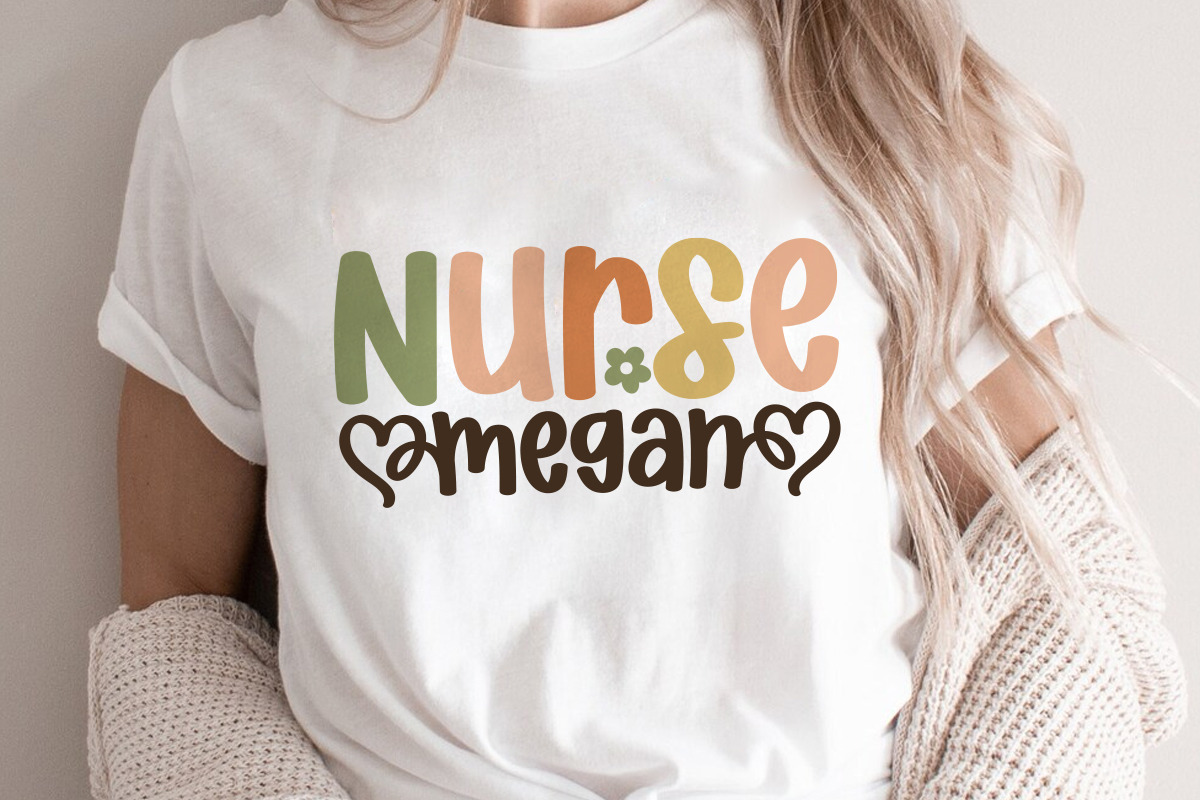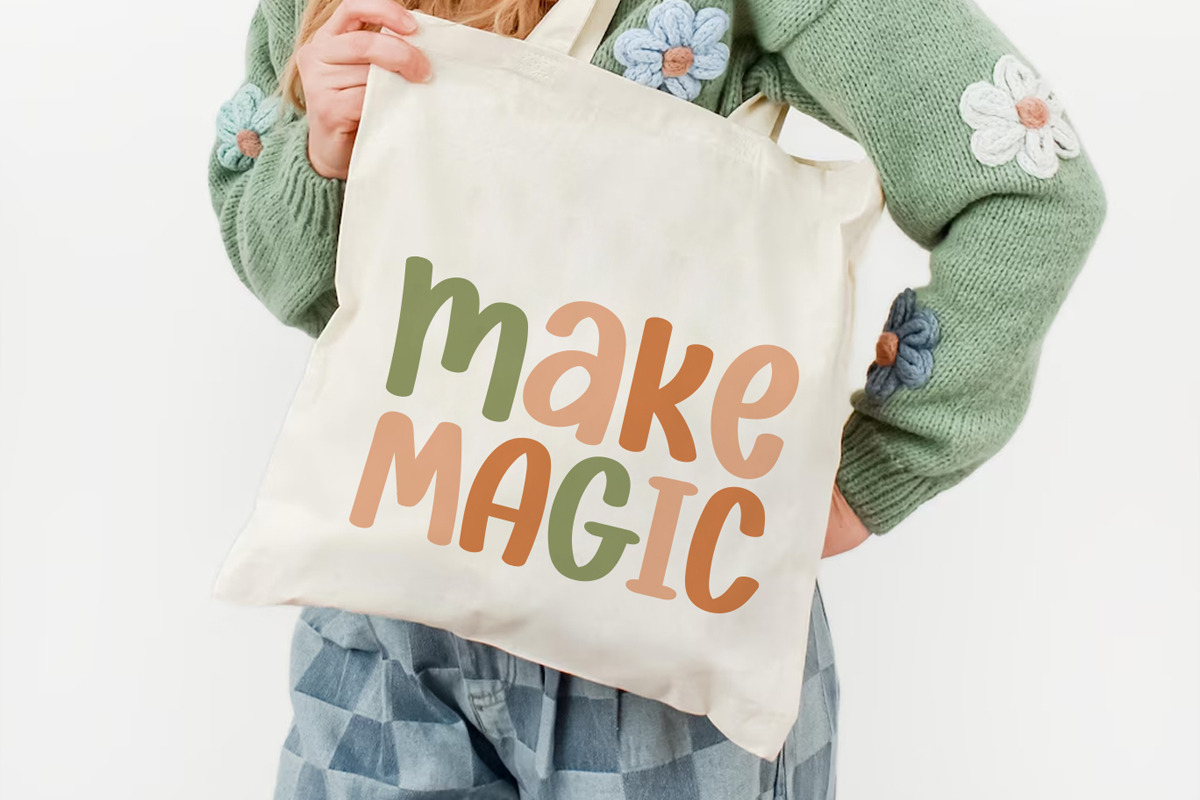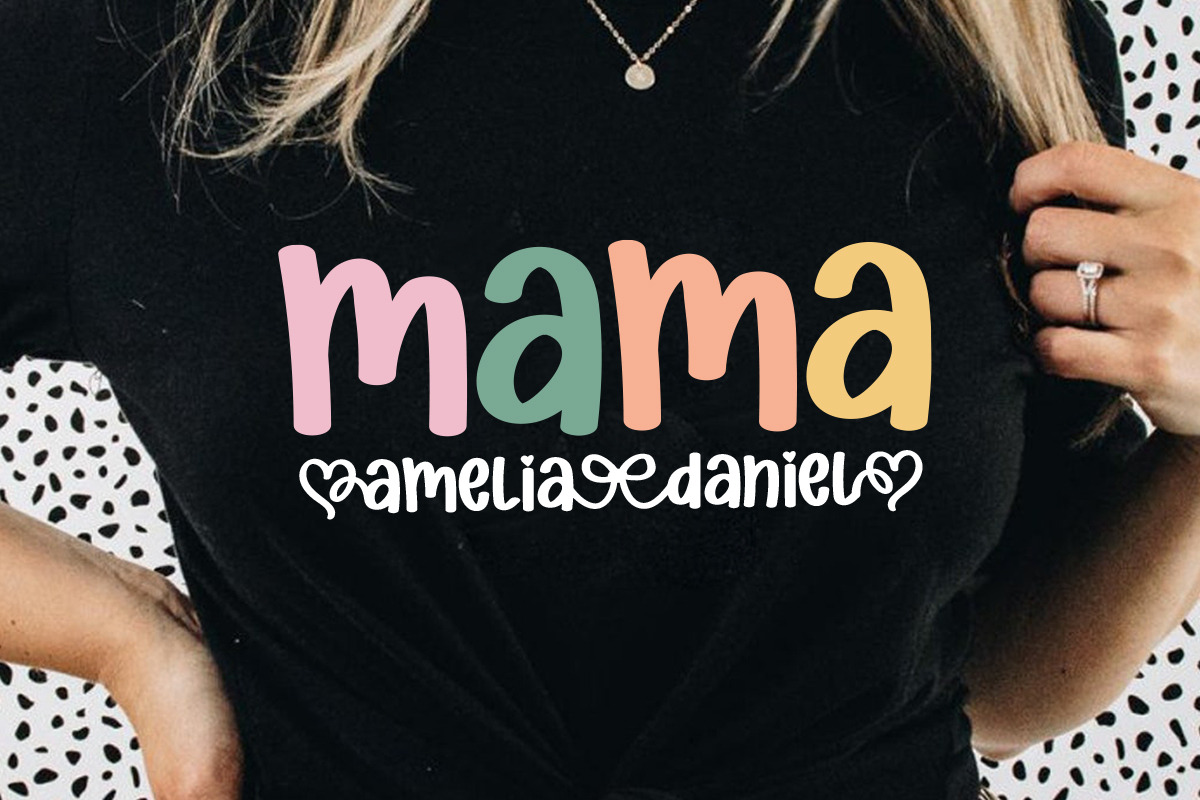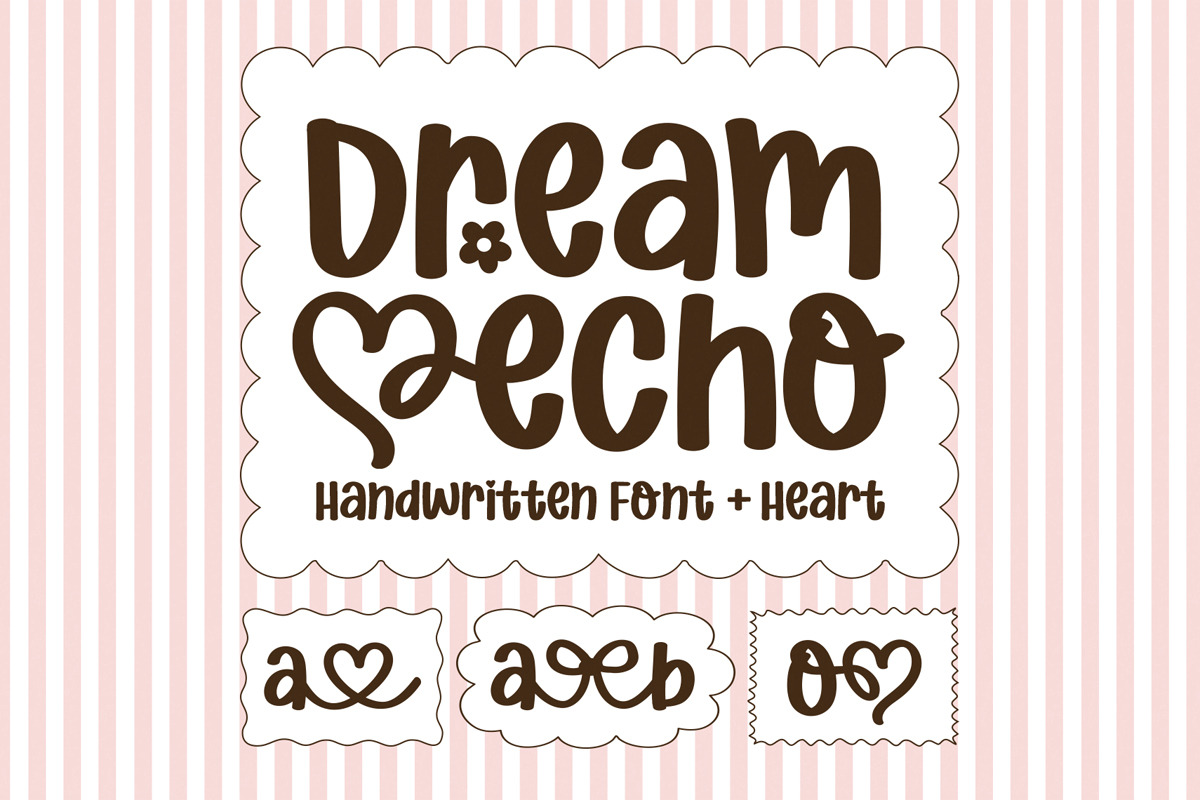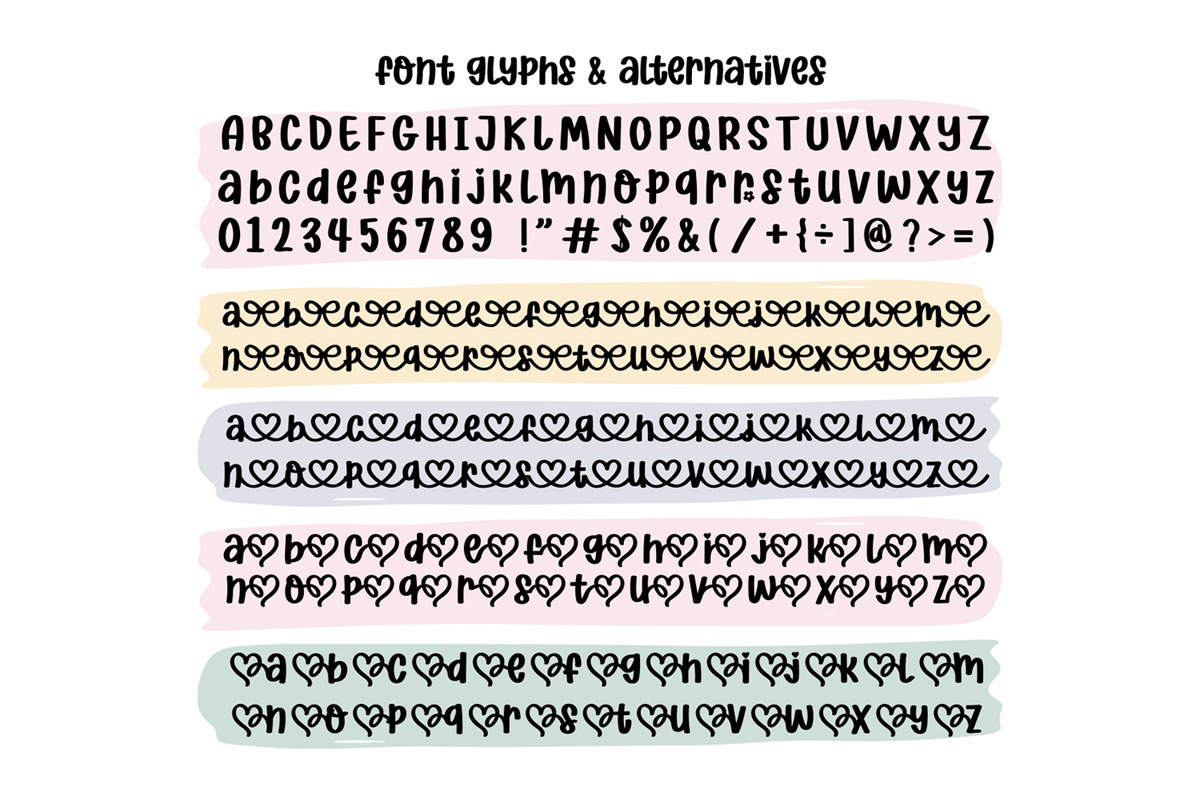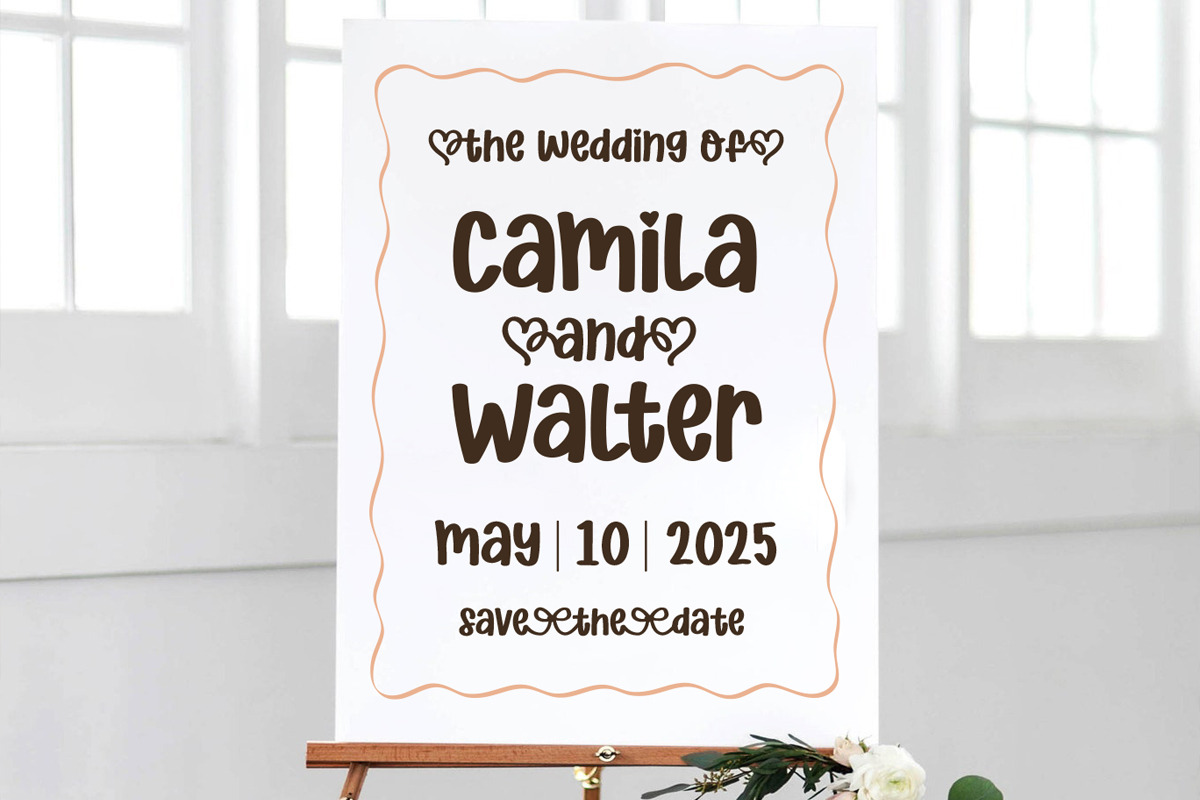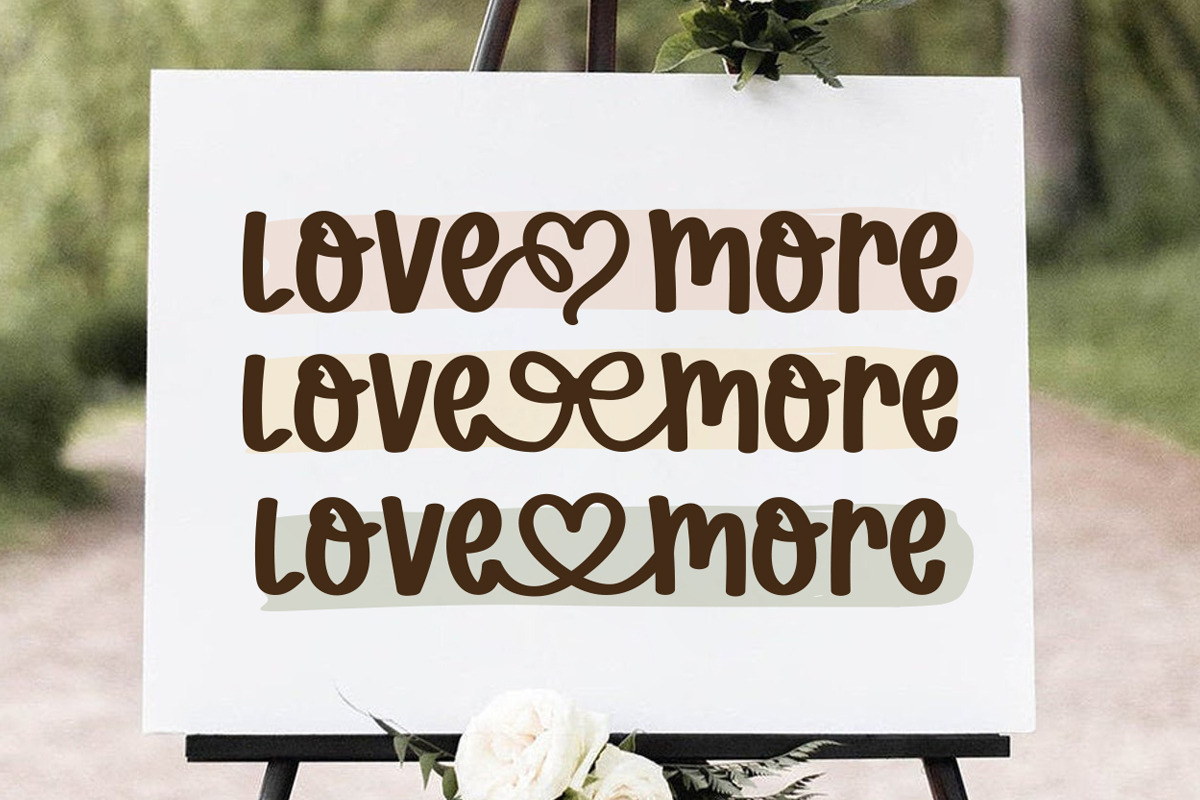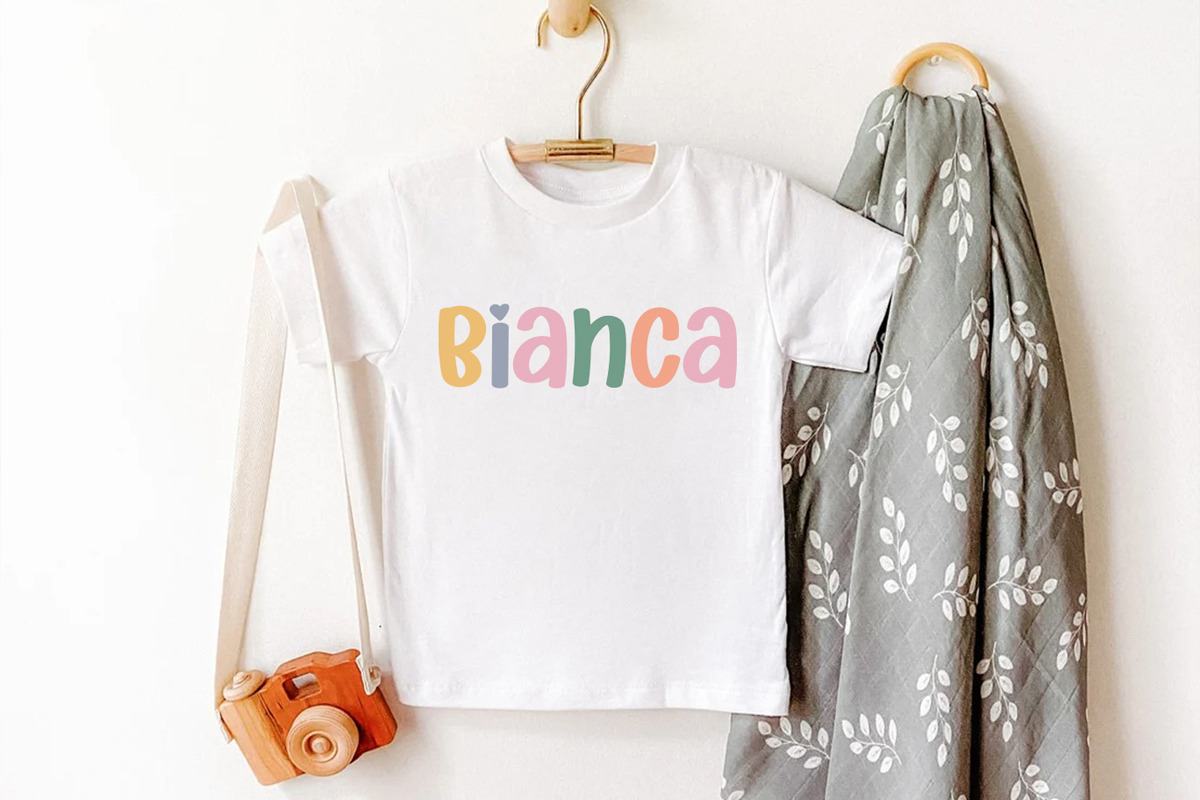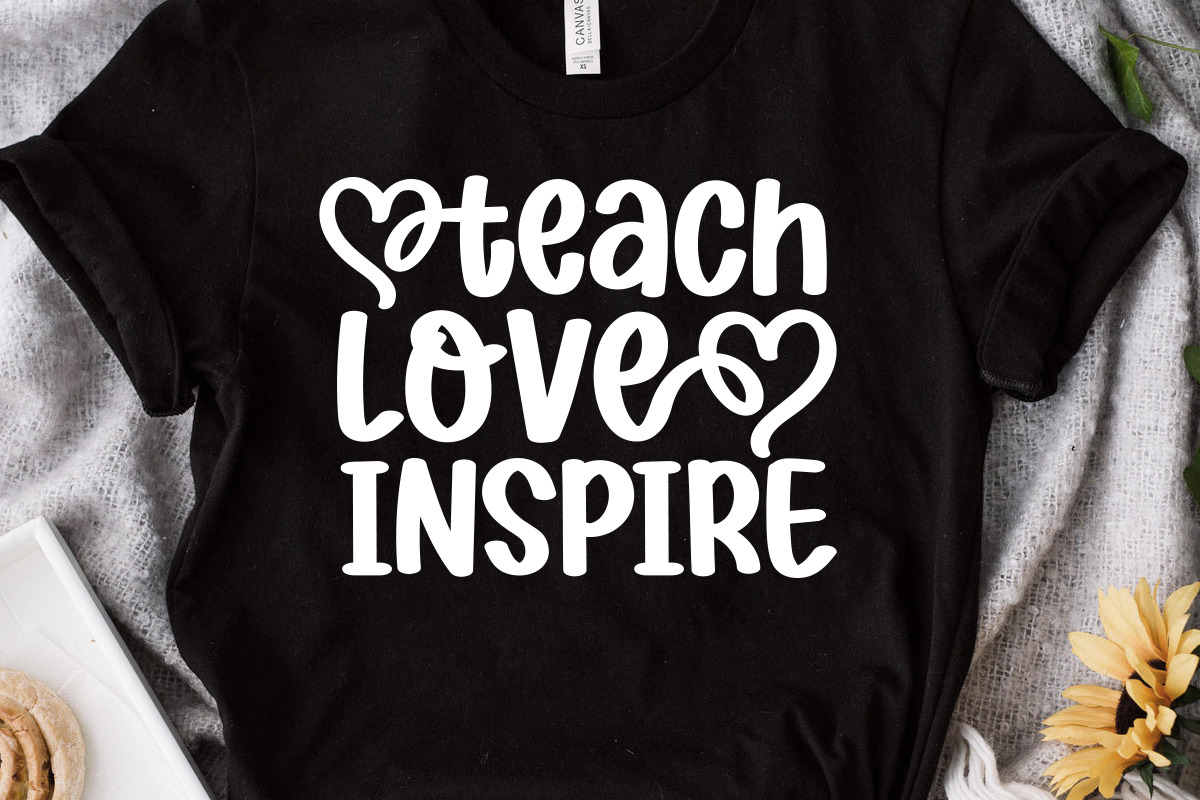
Dream Echo - Handwritten Heart Font
Dream Echo is a modern, stylish, and flowing handwritten heart font. It has beautiful and well-balanced characters, and as a result, it matches a wide pool of designs. It is the best choice for creating eye-catching logos, branding, and quotes. Add it to your most creative ideas, and notice how it makes them come alive!